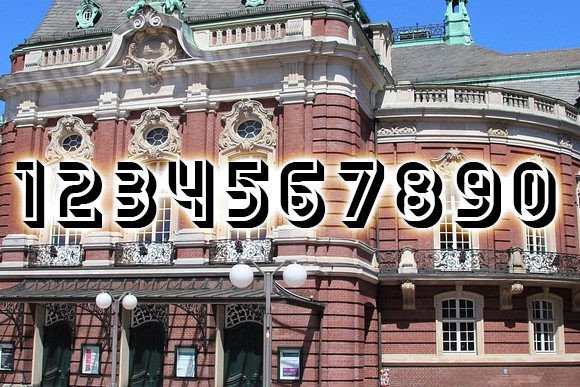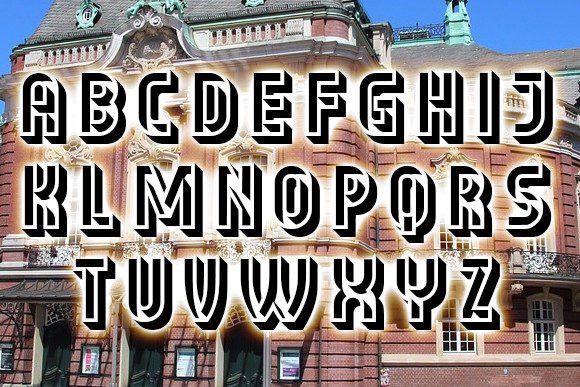
Brahms Font: Elevate Your Designs with Stunning 3D Typography
Are you tired of using the same old fonts in your designs? Look no further than the Brahms Font, a stunning 3D font family that is sure to take your creations to the next level. With its unique and eye-catching style, Brahms is perfect for designers and crafters looking to add a touch of sophistication and elegance to their work.
What is Brahms Font?
Brahms Font is a 3D font family that is designed to make your designs look stunning. Its unique and intricate details make it stand out from other fonts, and its versatility makes it suitable for a wide range of applications. Whether you’re working on a poster, flyer, or t-shirt, Brahms Font is the perfect choice.
Key Features of Brahms Font
- Stunning 3D Design: Brahms Font features a stunning 3D design that is sure to grab attention. Its intricate details and unique style make it perfect for designs that need to stand out.
- Versatile: Brahms Font is versatile and can be used for a wide range of applications, including posters, flyers, t-shirts, and more.
- Elegant and Sophisticated: Brahms Font has an elegant and sophisticated style that is perfect for designs that need to convey a sense of luxury and refinement.
Uses of Brahms Font
Brahms Font is perfect for a wide range of design applications, including:
- Posters: Brahms Font is perfect for creating eye-catching posters that need to grab attention.
- Flyers: Brahms Font is great for creating flyers that need to stand out from the crowd.
- T-Shirts: Brahms Font is perfect for creating custom t-shirts that need to make a statement.
- Logos: Brahms Font can be used to create stunning logos that need to convey a sense of elegance and sophistication.
Why Choose Brahms Font?
There are many reasons why you should choose Brahms Font for your design needs. Here are just a few:
- Unique Style: Brahms Font has a unique style that is sure to make your designs stand out.
- High-Quality: Brahms Font is a high-quality font that is designed to look great in any application.
Tips for Using Brahms Font
Here are a few tips for using Brahms Font in your designs:
- Use it Sparingly: Brahms Font is a bold font, so use it sparingly to avoid overwhelming your design.
- Experiment with Colors: Brahms Font looks great in a variety of colors, so experiment with different colors to find the one that works best for your design.
- Pair it with Other Fonts: Brahms Font can be paired with other fonts to create a unique and interesting design.
Brahms Font is a stunning 3D font family that is sure to elevate your designs to the next level. With its unique style, versatility, and ease of use, Brahms Font is perfect for designers and crafters looking to add a touch of sophistication and elegance to their work. Whether you’re working on a poster, flyer, or t-shirt, Brahms Font is the perfect choice.